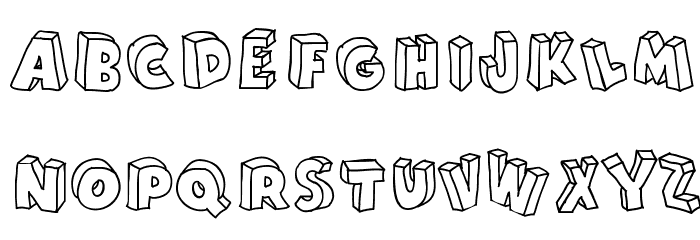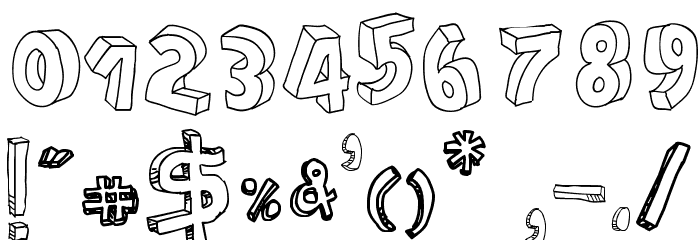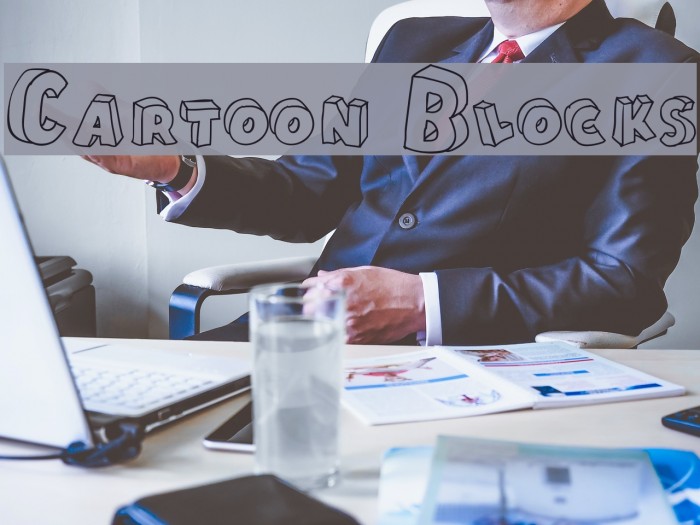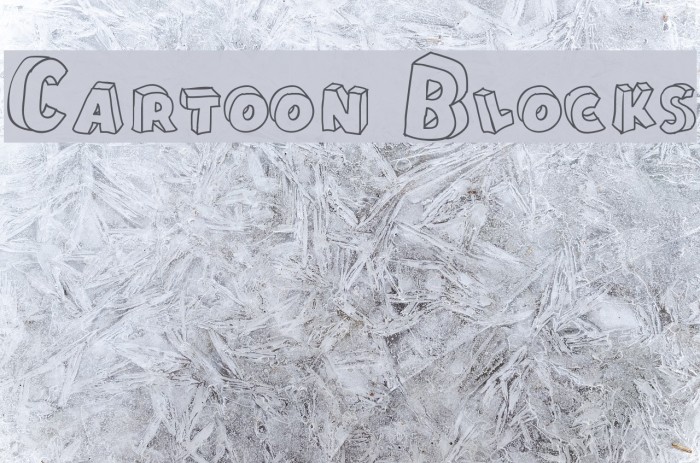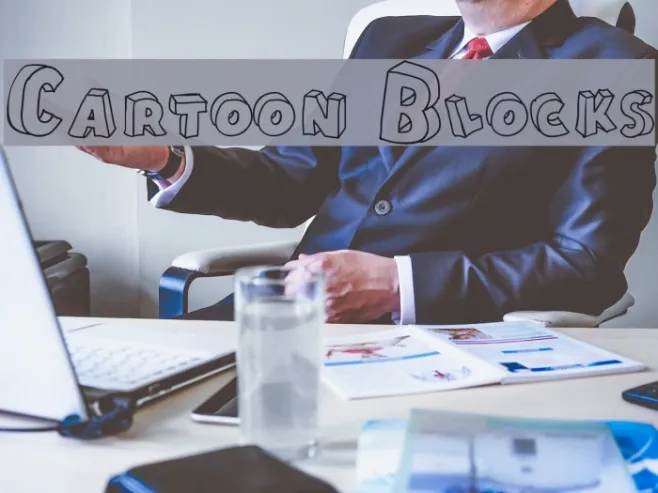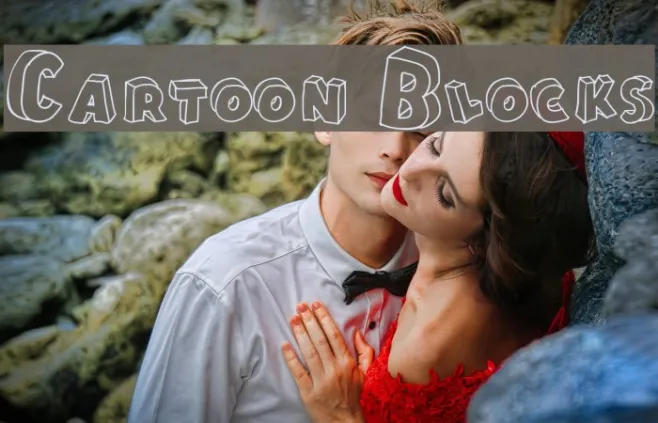
Cartoon Blocks Font
This playful and bold font features a three-dimensional block style that gives each character a cartoonish and dynamic appearance. The letters are outlined with a thick black line, enhancing their visibility and adding a fun, informal touch. The font is characterized by its exaggerated, chunky forms and slightly irregular shapes, which contribute to its whimsical and lively feel. The numbers and special characters maintain the same blocky, outlined style, ensuring consistency throughout. This font is perfect for projects that aim to capture attention with a sense of humor and creativity.
A playful, 3D block-style font with bold outlines and a cartoonish flair.
- Proposed Projects: Ideal for children's books, comic strips, playful branding, and eye-catching posters.
- Overall Style: Cartoonish, Playful, Fun